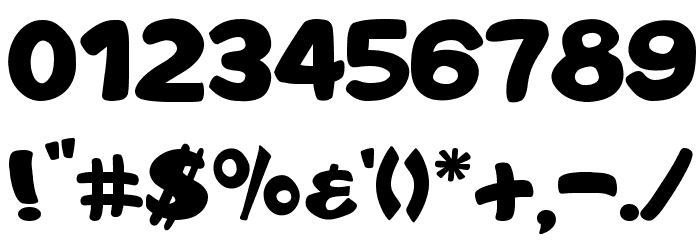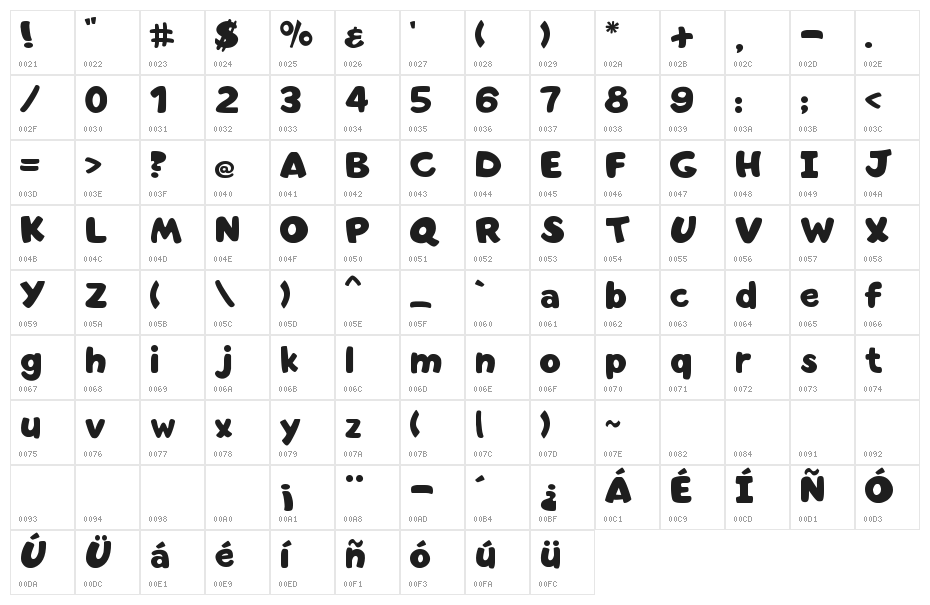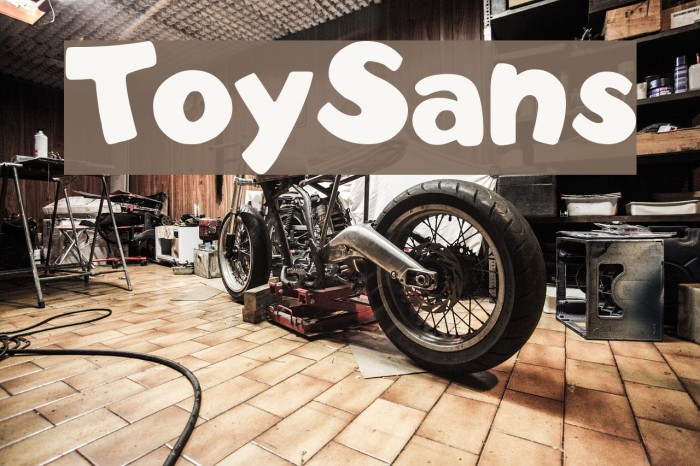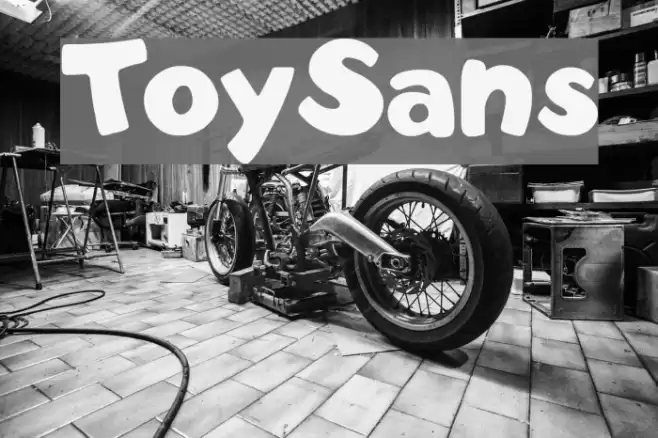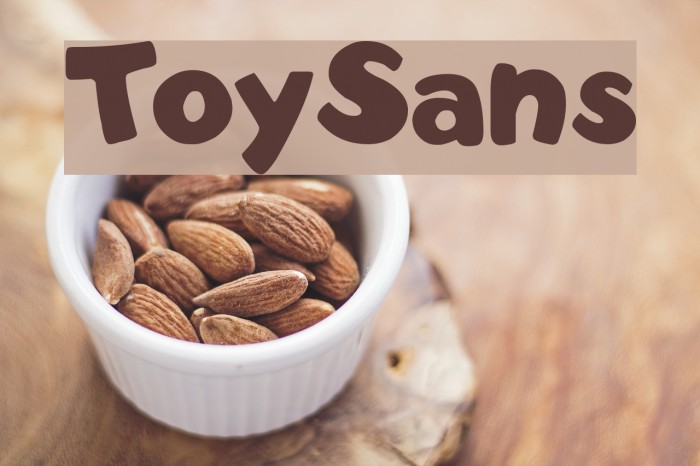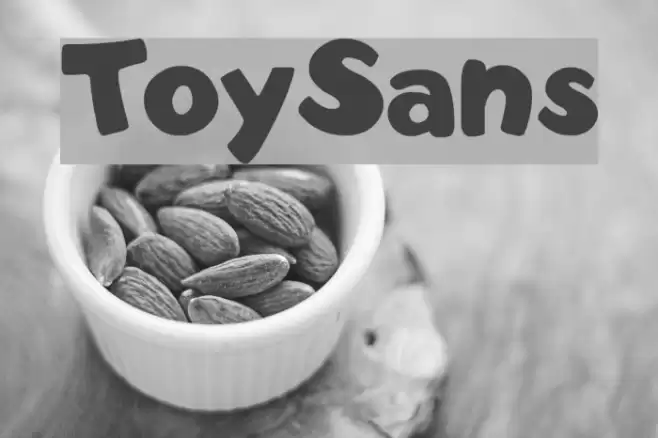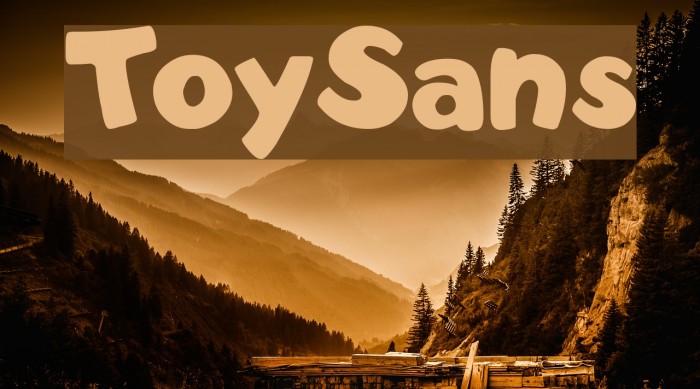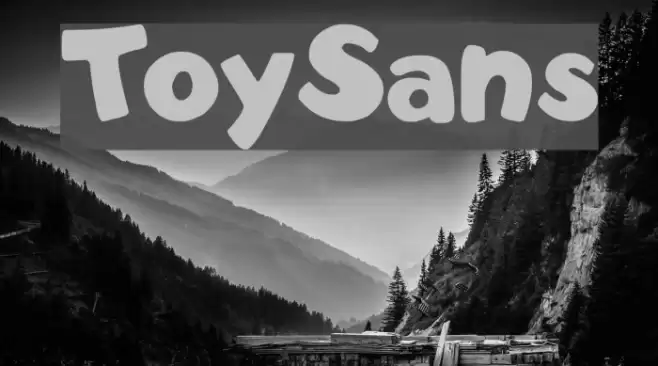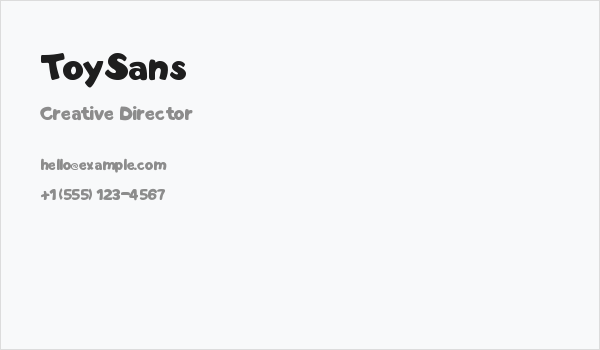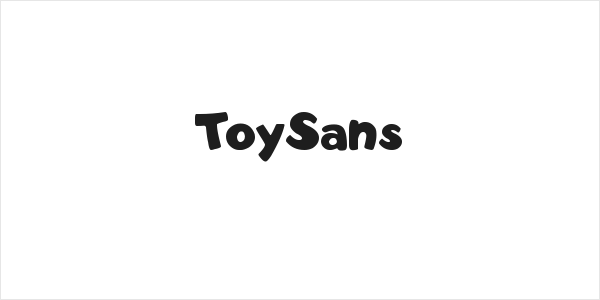
ToySans Font
ToySans Description
This playful and bold font features rounded, bubbly characters that exude a sense of fun and whimsy. The letters are thick and have a uniform stroke width, giving them a strong presence on the page. The overall style is informal and friendly, making it ideal for projects that aim to convey a lighthearted or youthful tone. The characters are well-spaced, ensuring readability while maintaining a cohesive look. The font includes a full set of uppercase and lowercase letters, numbers, and a variety of special characters, making it versatile for different design needs.
| Proposed Projects | Ideal for children's books, playful branding, party invitations, and casual social media graphics. |